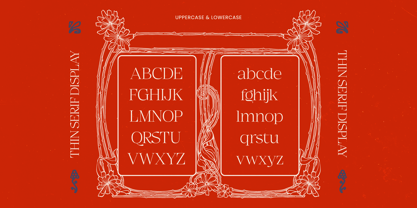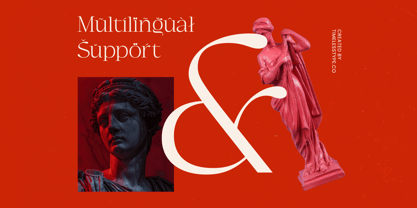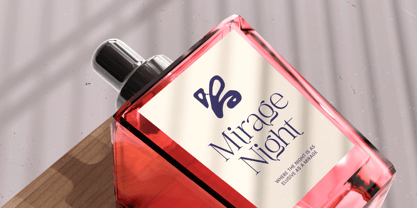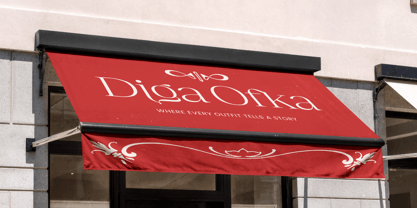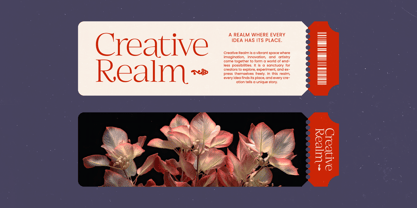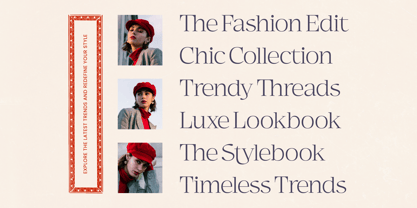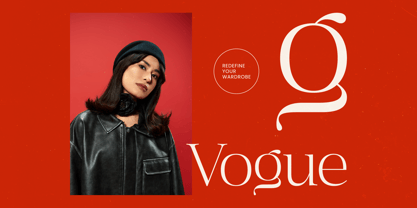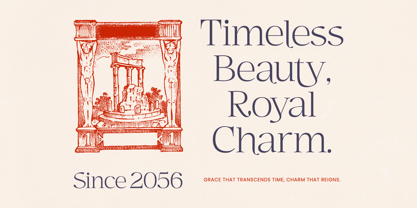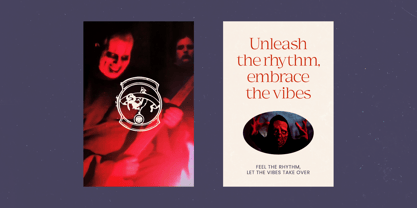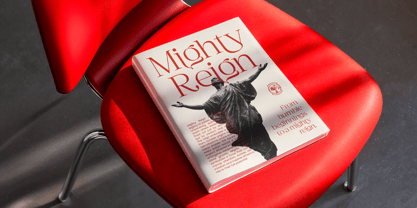
The Megria Font Family was designed by Heru Utama Putra and published by Timelesstype Studio. Megria contains 2 styles and family package options. More about this family
Megria – Elegant Thin Serif Display Typeface Megria is a refined and elegant thin serif display typeface inspired by classic European art, vintage illustrations, and timeless editorial design. With its delicate strokes, graceful curves, and high-contrast letterforms, Megria delivers a sophisticated visual presence perfect for premium and artistic projects. Designed to evoke a sense of heritage and elegance, Megria blends traditional serif beauty with modern usability. The font includes 40 ligatures and 12 stylistic alternates, allowing designers to craft unique, flowing typography with a distinctive and luxurious feel. Its artistic character makes Megria ideal for branding, fashion editorials, book covers, invitations, packaging, and high-end visual identities. Whether used for headlines or decorative titles, Megria adds a touch of refinement and timeless charm to any design.
Megria